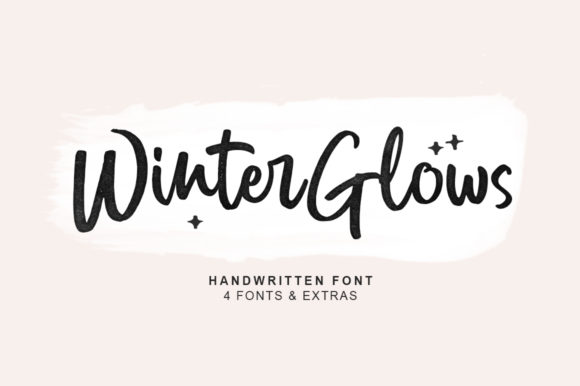
Unleash the Enchantment of Winter Glows: A Hand Lettering Font of Exquisite Elegance
Immerse yourself in the captivating beauty of Winter Glows, a script font that embodies the magic of handwritten elegance. Designed with a delicate touch by the talented fargunstudio, this font is a symphony of timeless grace and authentic calligraphy.
With its enchanting flow and intricate details, Winter Glows will cast a spell on your creative projects. It's the perfect choice for those seeking a font that radiates sophistication and charm. Whether you're a seasoned designer or a lettering enthusiast, Winter Glows will elevate your creations to new heights.
Experience the versatility of Winter Glows as it effortlessly blends into a multitude of design applications. From web design to print projects, moving images to social media graphics, Winter Glows will make your words shine with captivating allure. Its seamless adaptability makes it the ideal font for a wide range of creative endeavors.
Embrace the allure of Winter Glows and watch as your projects transform into captivating masterpieces. Its ability to evoke emotion and add a touch of magic to your work is simply enchanting. Indulge in the beauty of Winter Glows and let your creativity flourish.